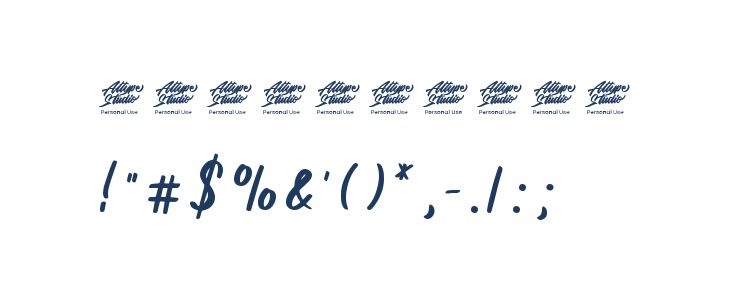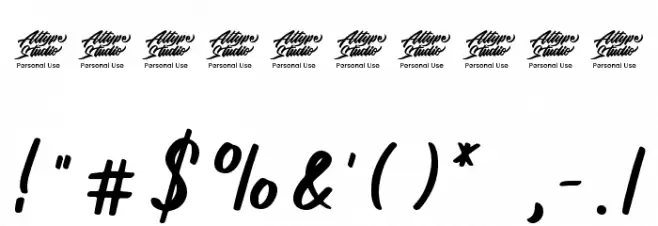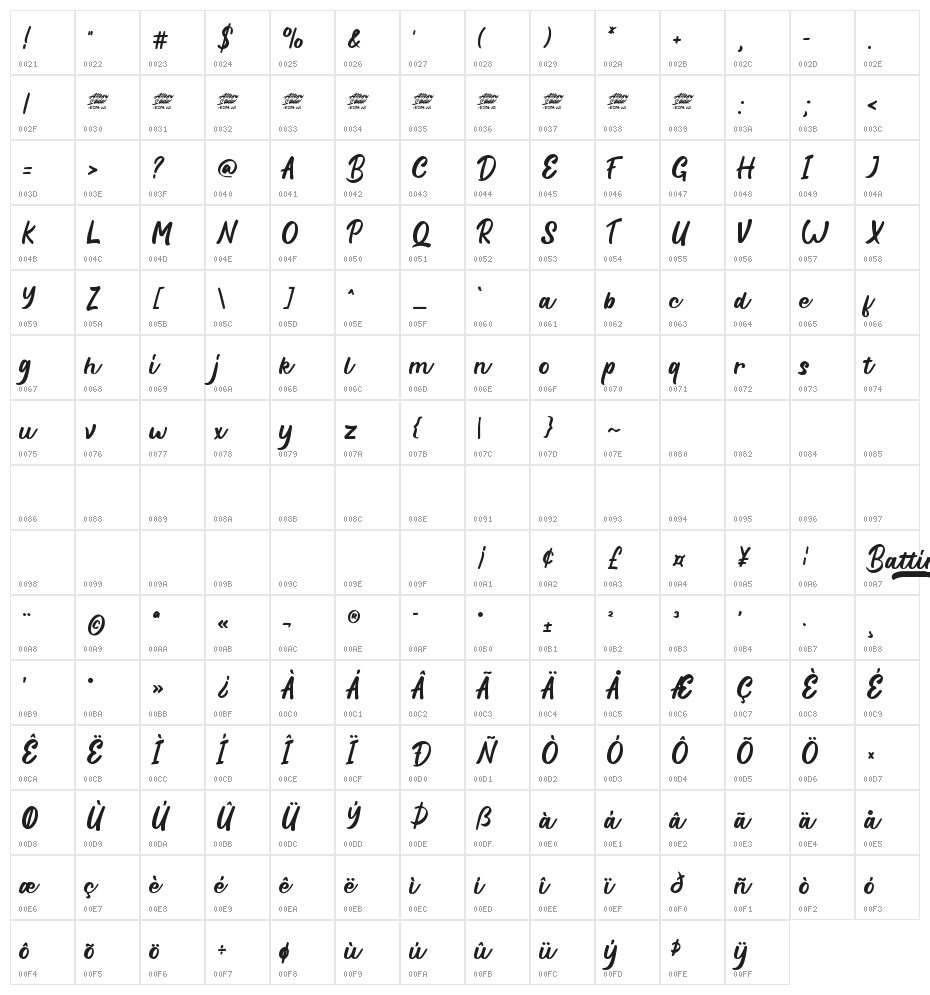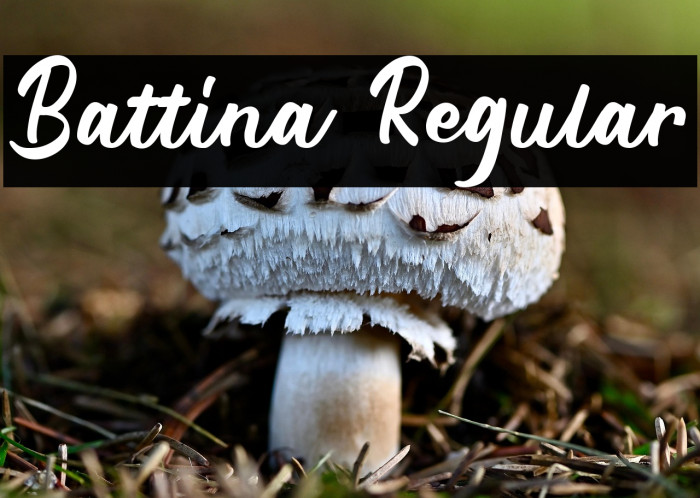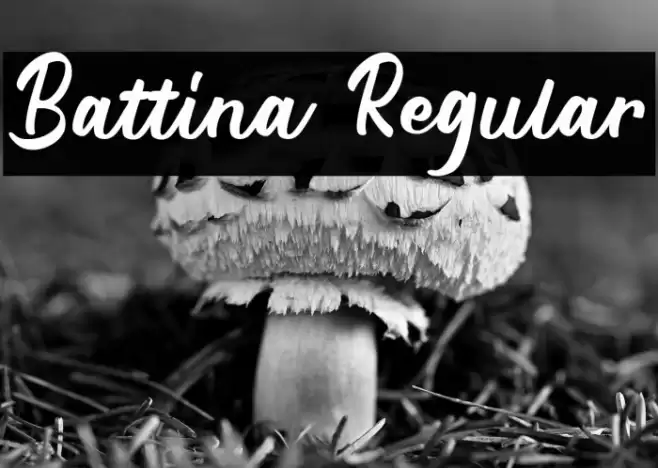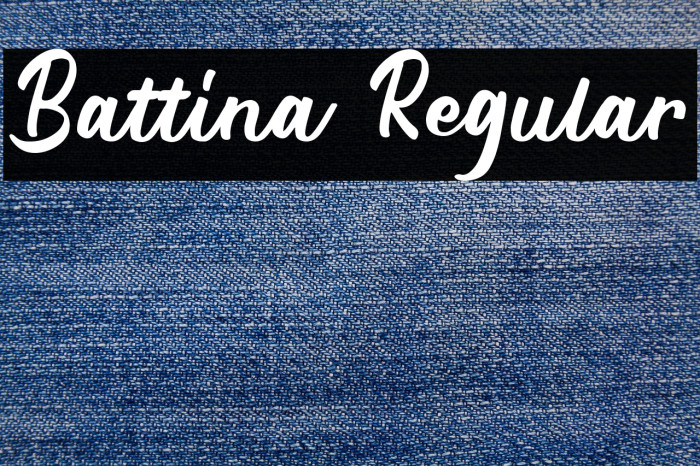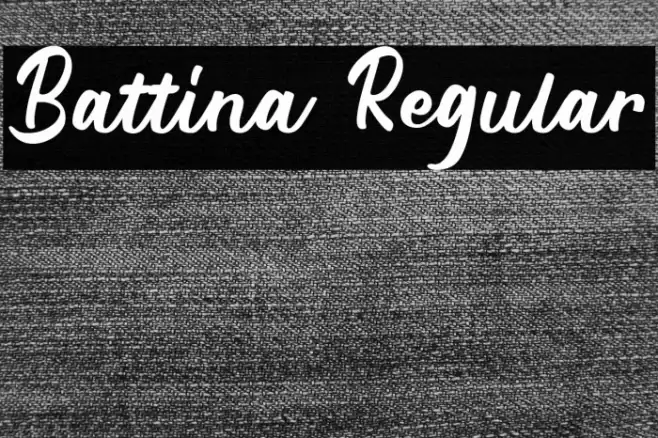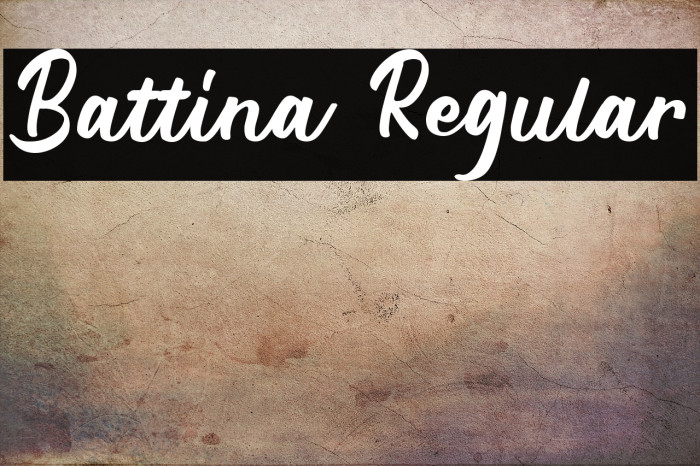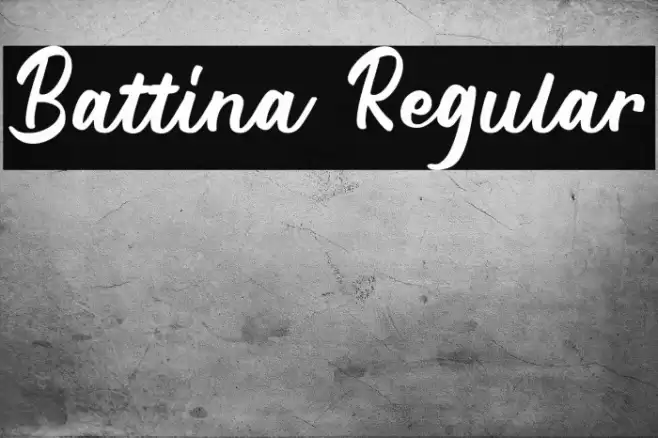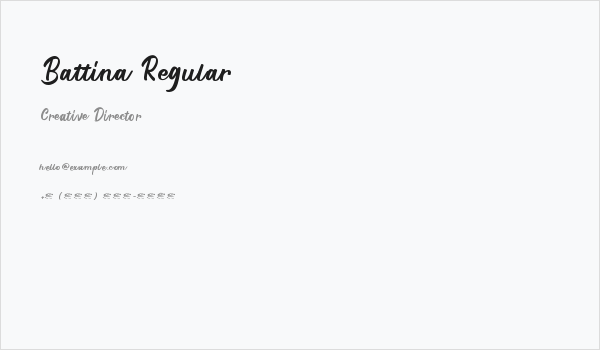
Battina Regular Font
Battina Regular Description
This font features a lively and flowing script style, characterized by its smooth, cursive strokes and elegant curves. The uppercase letters exhibit a bold presence with a slight slant, while the lowercase letters maintain a consistent flow, enhancing readability. The font's design is both playful and sophisticated, making it suitable for a variety of creative applications. The numerals and special characters are crafted with the same attention to detail, ensuring a cohesive look across all text elements. Its unique style is perfect for adding a personal touch to any project.